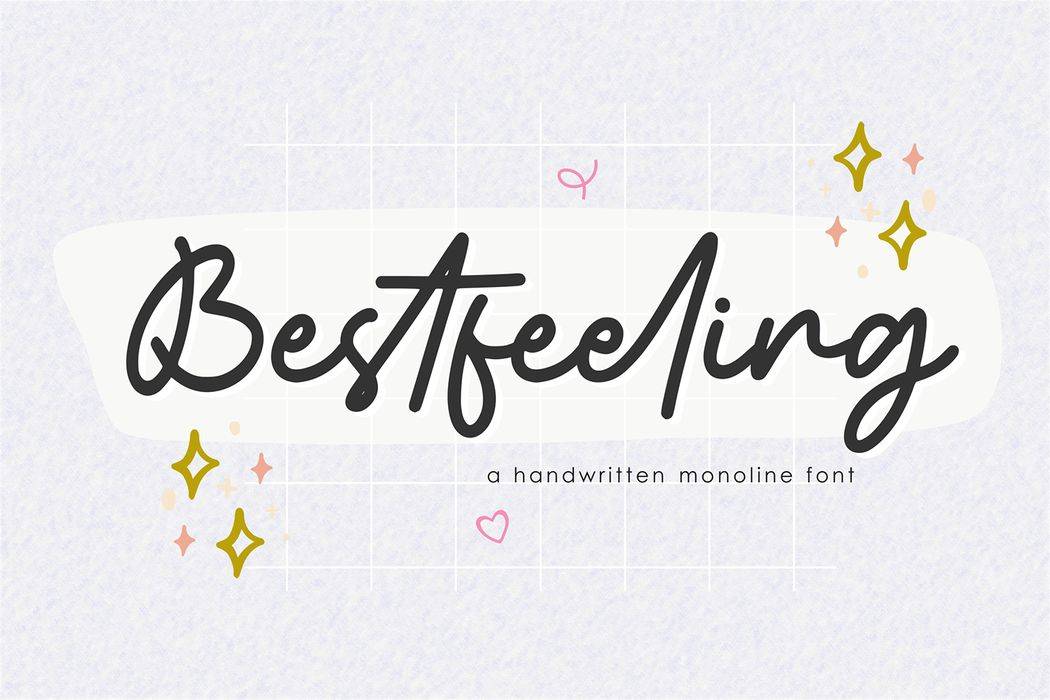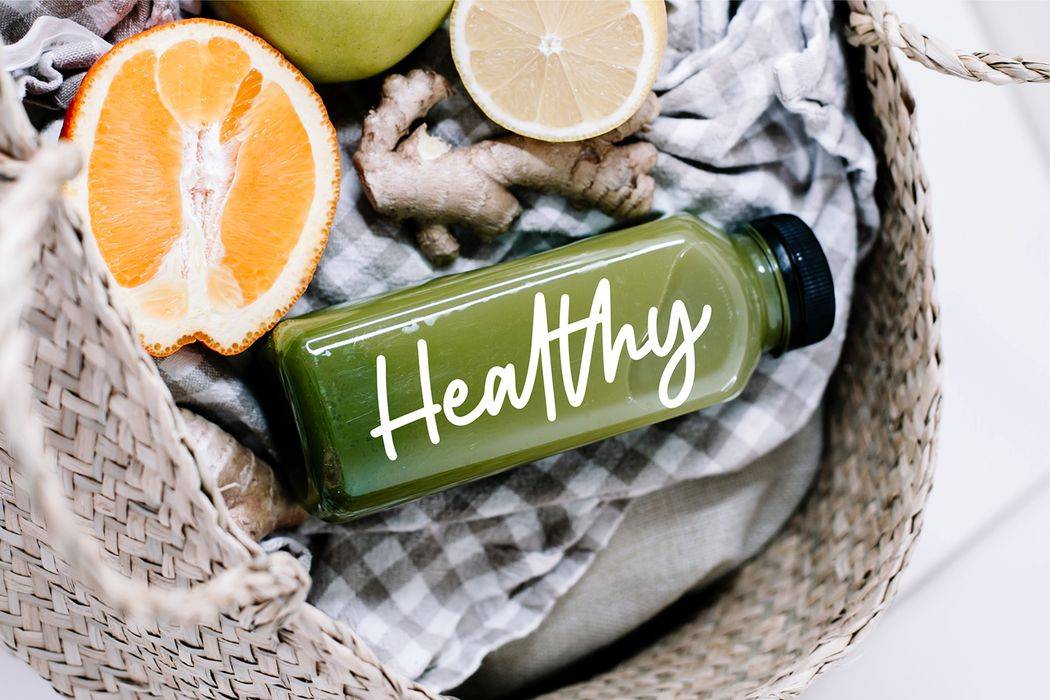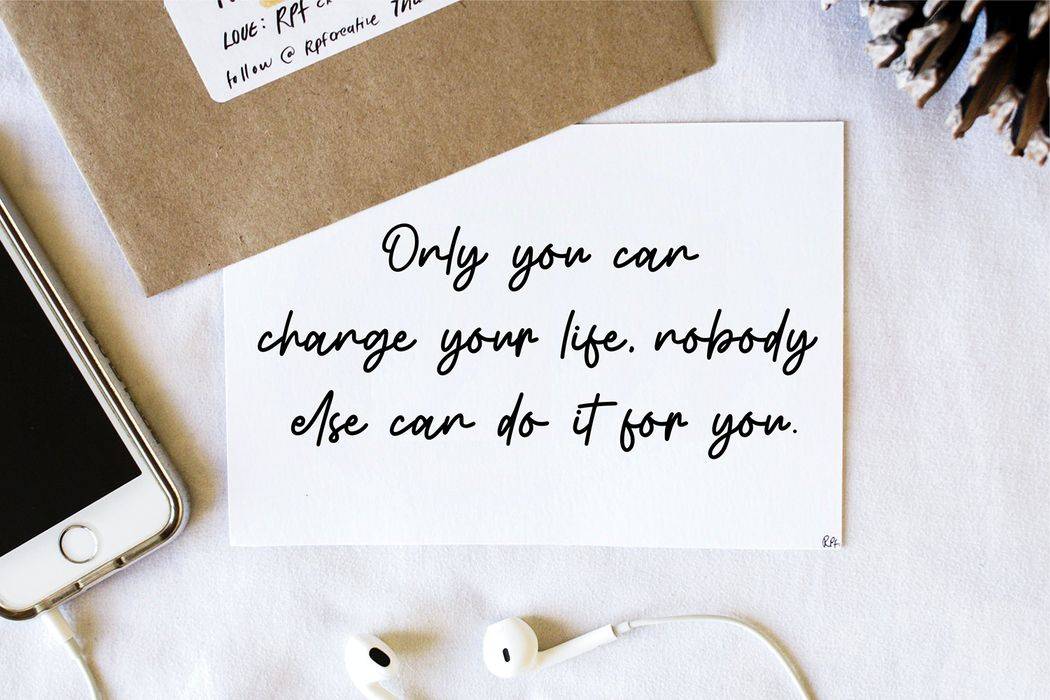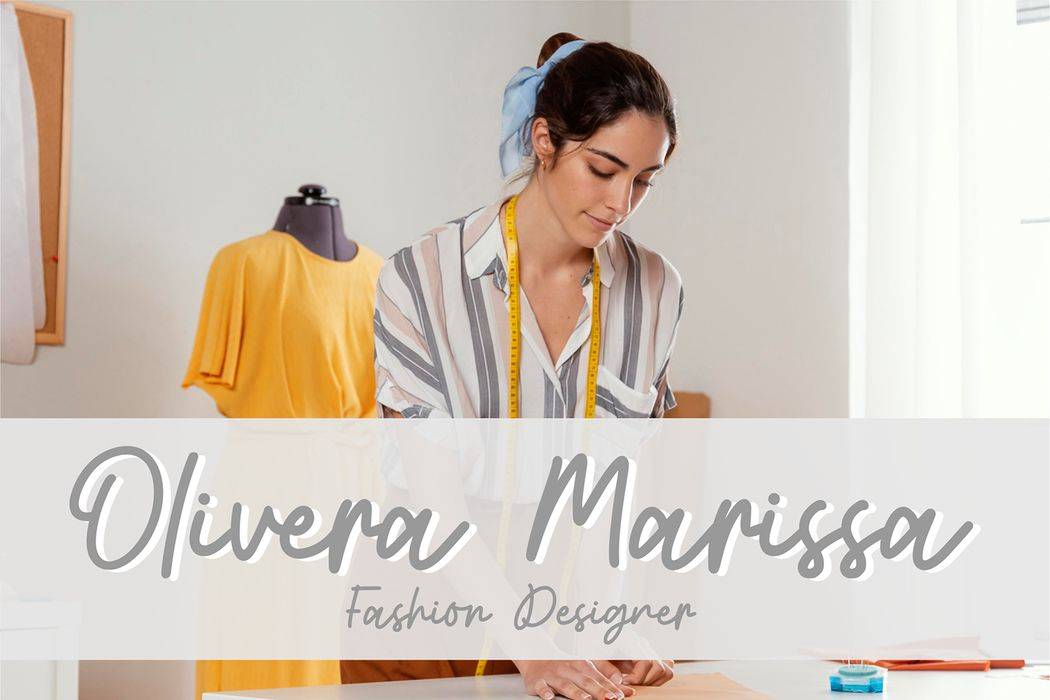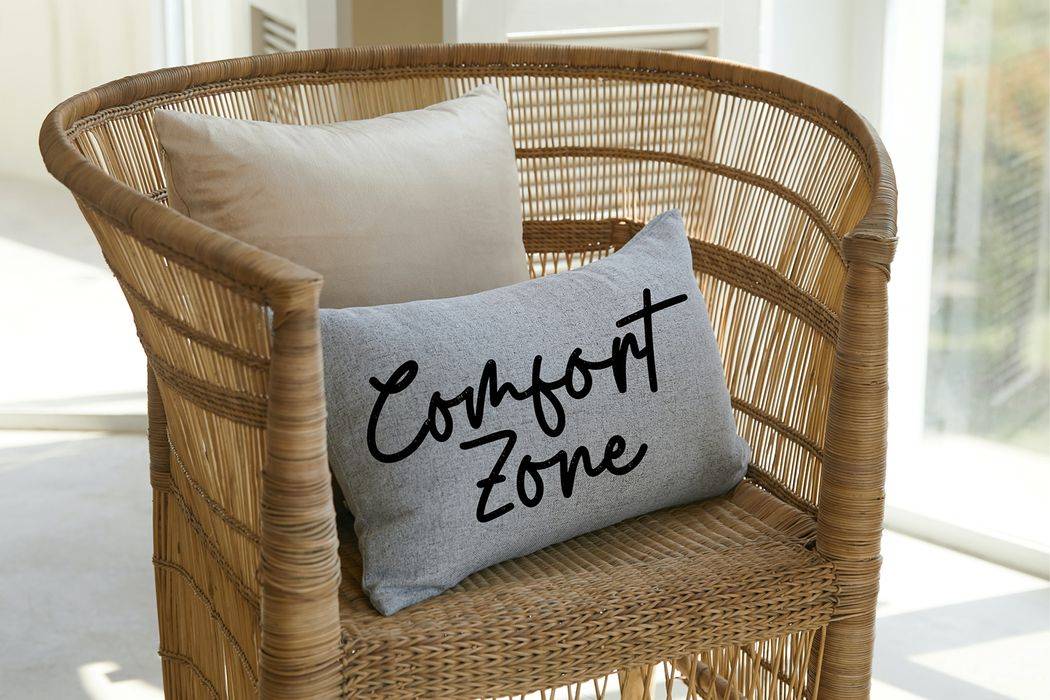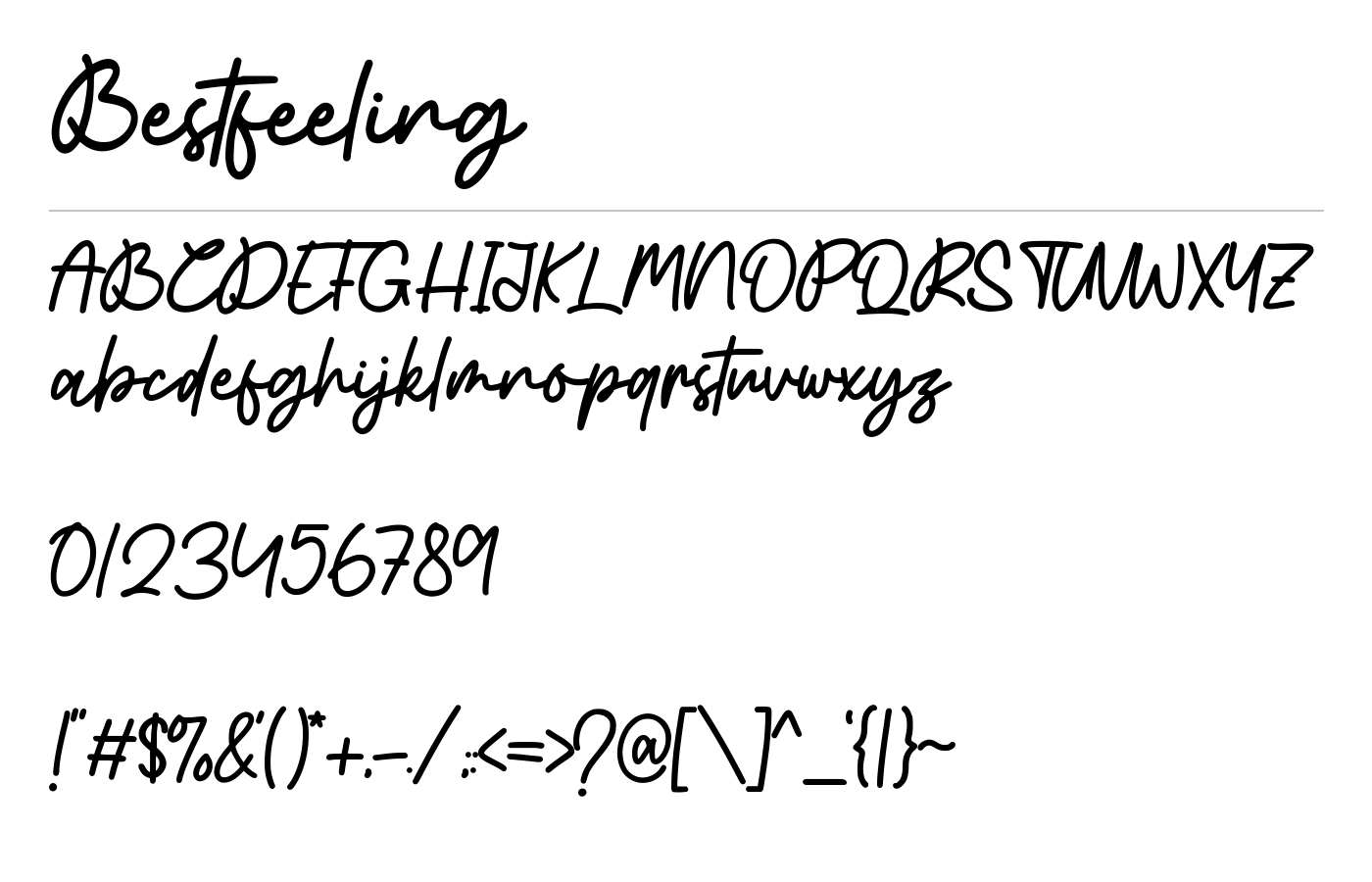
Bestfeeling is a casual, handwritten script font with a lively and friendly character. Its smooth, flowing strokes and natural letterforms give it an approachable, personal feel, making it perfect for designs that want to convey warmth and creativity. This font works well in branding, invitations, and informal editorial content where a playful yet clear handwritten style is desired.
Bestfeeling Font
About Bestfeeling Font